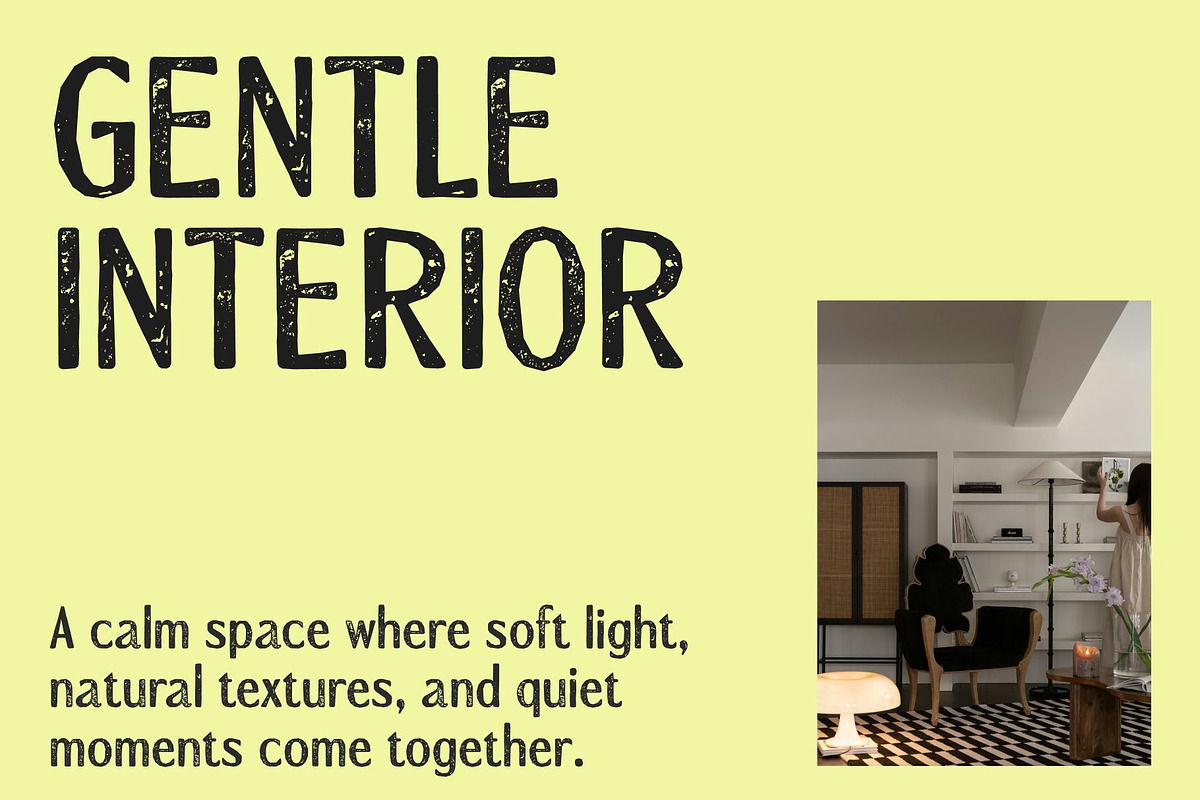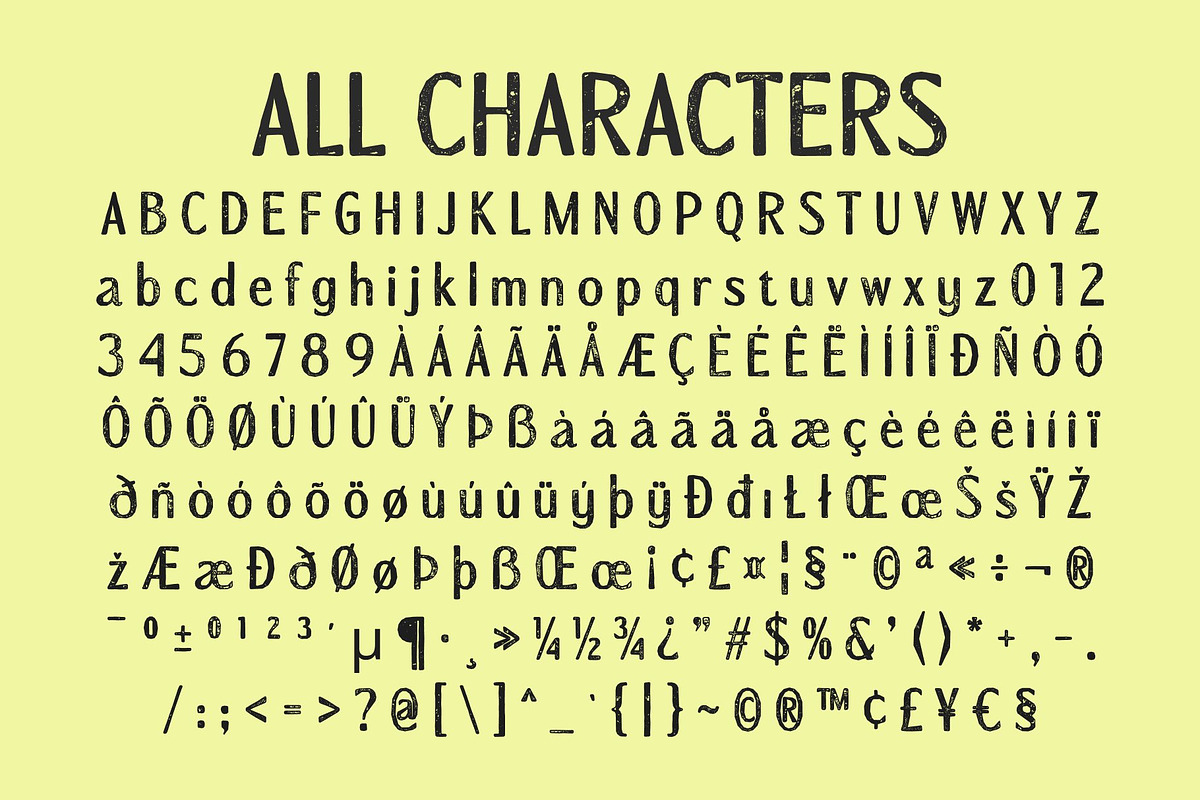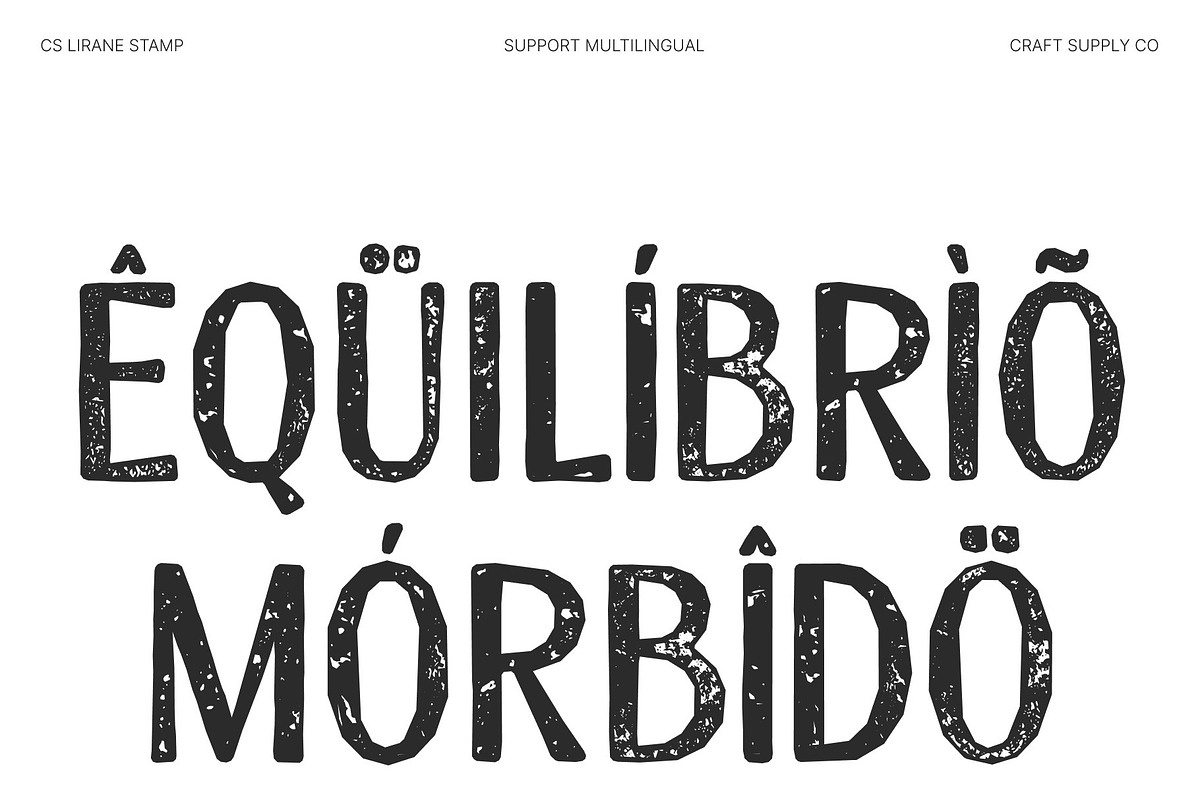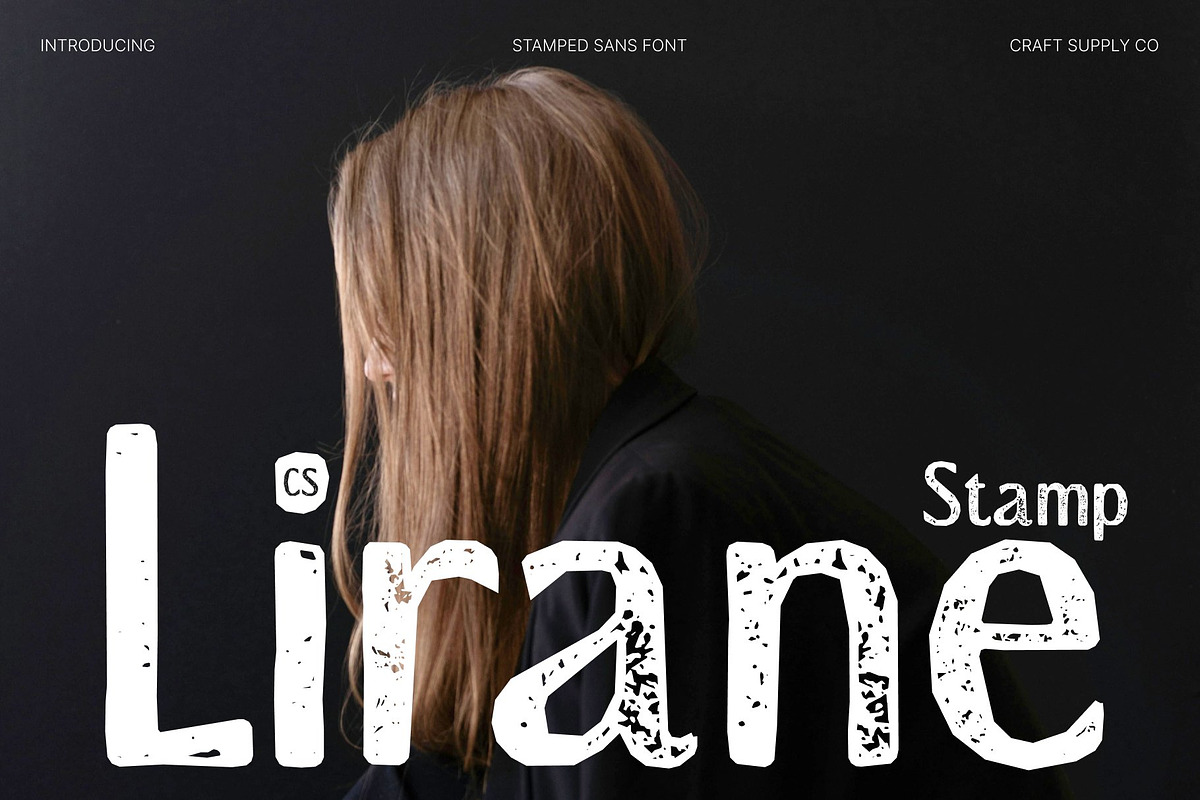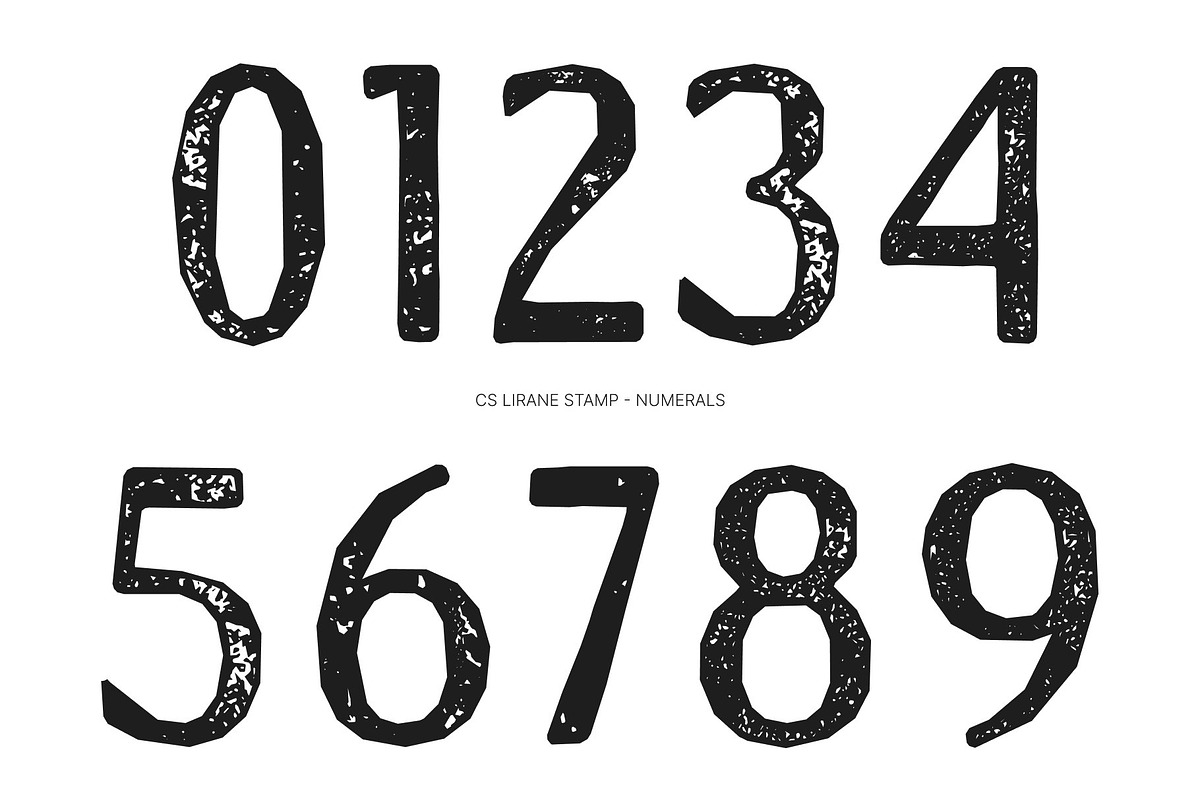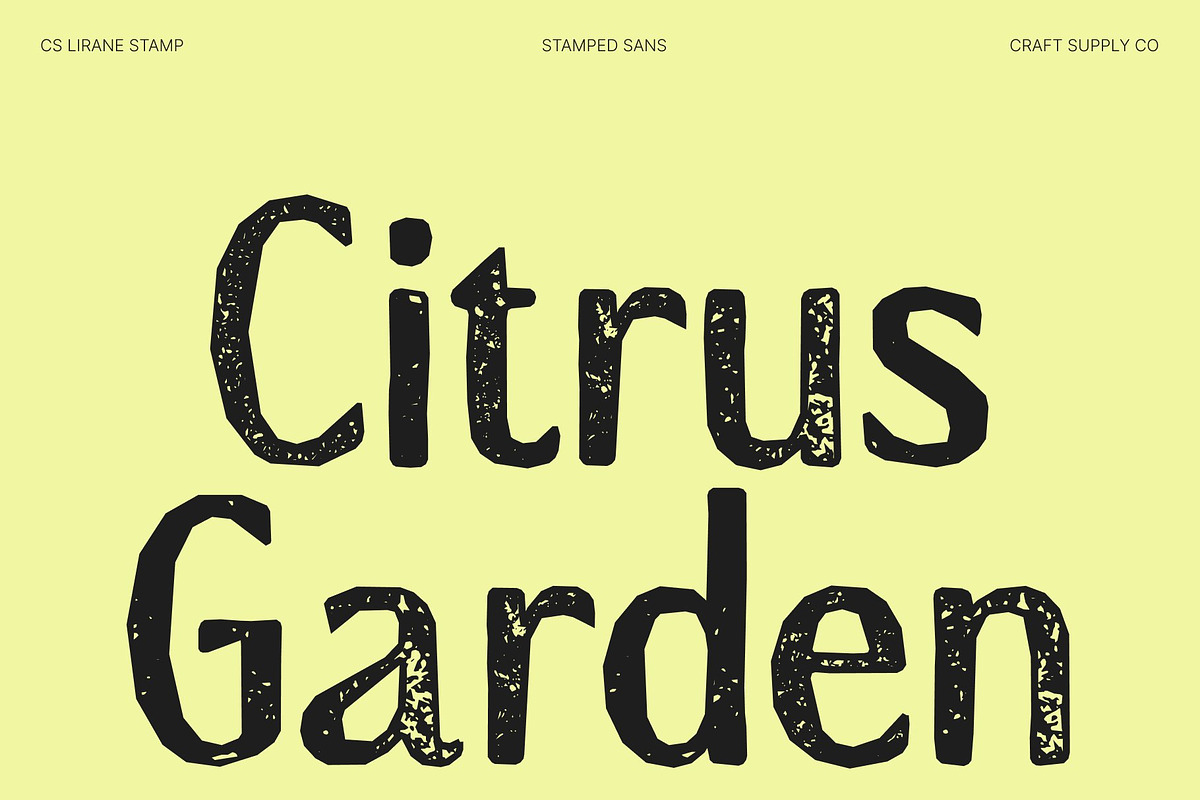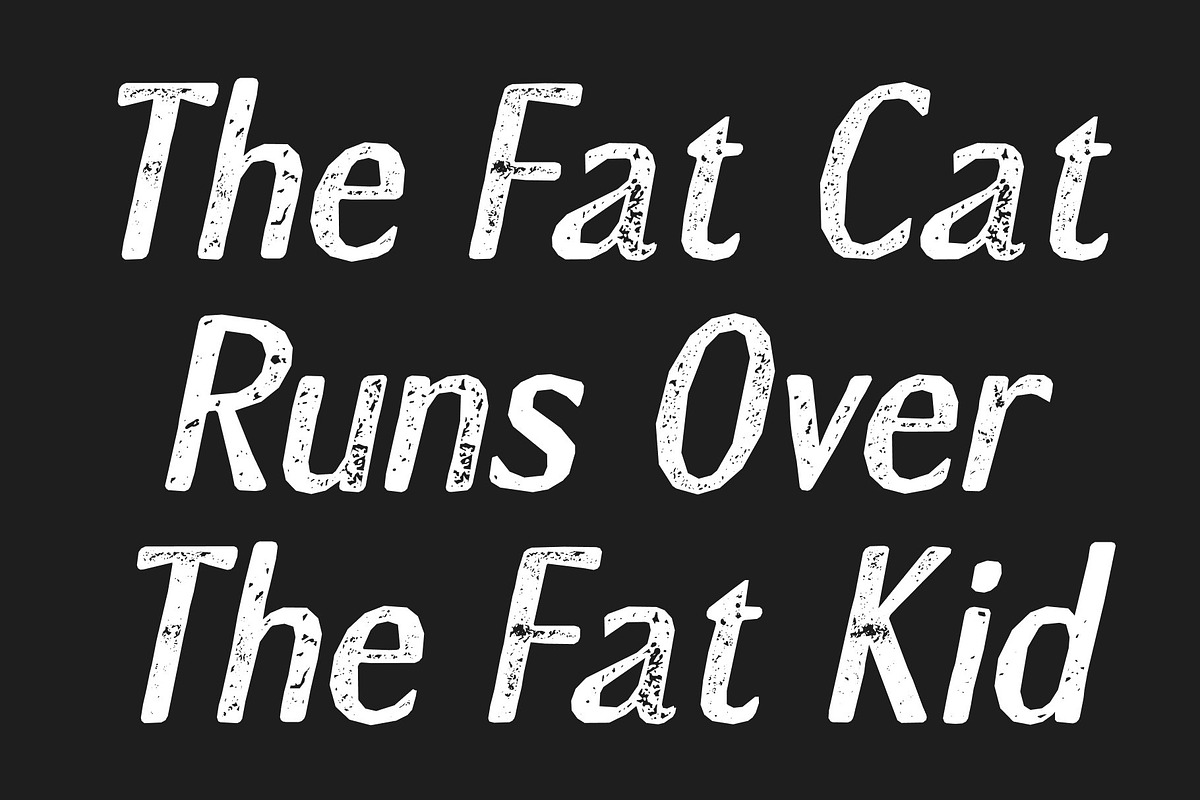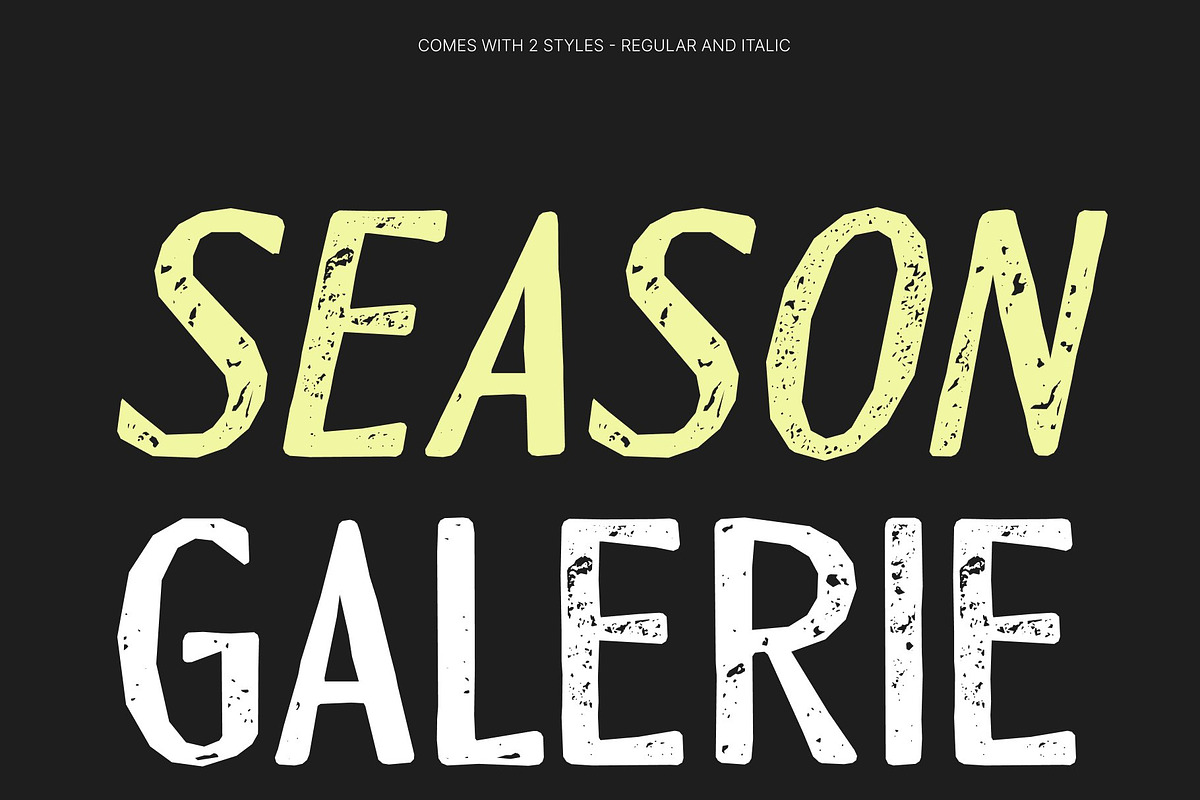
CS Lirane Stamp
CS Lirane Stamp – Modern Sans Serif Font: Clean Geometry with Textured Character
Minimal Structure with Organic Personality This is a clean modern sans serif font that blends geometric precision with a distinctive stamp texture. Its sleek lines, balanced proportions, and contemporary construction create a professional and minimalist foundation, while the stamped effect introduces subtle imperfections that bring warmth and authenticity.
Professional Versatility for Modern Design Designed to perform across a wide range of applications, this font delivers a polished and confident presence in branding, web design, marketing materials, and presentations. Its geometric clarity ensures strong readability, while the textured finish adds depth and personality that helps designs stand out.
Contemporary Style with Vintage Texture The stamp effect introduces a subtle retro-inspired finish reminiscent of traditional ink stamping. Slightly rough edges and organic details contrast beautifully with the clean geometry, creating a harmonious blend of modern efficiency and nostalgic charm. This textured layer enriches the visual experience without compromising the font’s clarity and professionalism.
Perfect for Branding, Web, and Editorial Use This font adapts seamlessly across print and digital media, making it ideal for logos, websites, social media graphics, and business communications. It communicates modernity, reliability, and creative character in every composition. For designers seeking a geometric sans serif that combines sleek simplicity with handcrafted texture, this font offers a balanced and versatile solution.
CS Lirane Stamp Regular
CS Lirane Stamp Italic